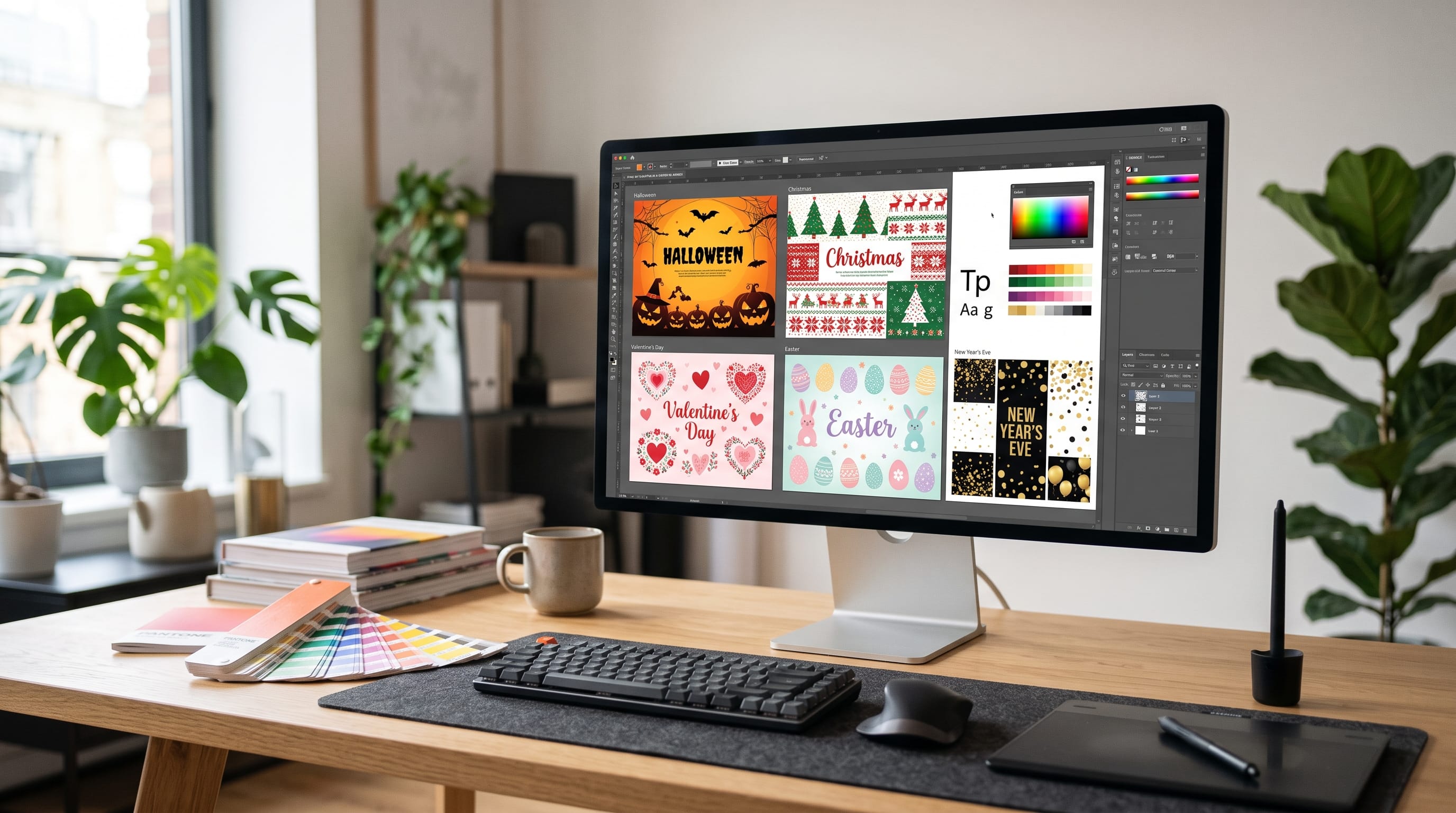
Holiday Graphic Design Styles That Inspire Better Designs
Creative seasonal campaigns begin with choosing the right holiday graphic design styles. Whether you’re designing for Christmas, Halloween, Valentine’s Day, Easter, Thanksgiving, Lunar New Year, or other celebrations, your visual direction should immediately communicate the excitement and atmosphere of the occasion. Strong seasonal graphics help brands connect emotionally with audiences while making products and promotions more memorable.
Modern holiday graphic design styles combine festive color palettes, engaging typography, seasonal illustrations, thoughtful layouts, and compelling visual storytelling. Designers who understand how to adapt their style for different holidays can create artwork that performs well across social media, websites, packaging, email marketing, and print materials.
Why Holiday Graphic Design Styles Matter
Seasonal design captures attention quickly.
Using effective holiday graphic design styles helps:
• Increase customer engagement
• Strengthen seasonal branding
• Improve campaign performance
• Create memorable visual experiences
• Support holiday promotions
• Encourage social sharing
• Increase product appeal
Strong holiday visuals help brands stand out during busy shopping seasons.
Holiday Graphic Design Styles for Christmas
Christmas remains one of the biggest opportunities for seasonal marketing.
Cozy Winter Style
Key characteristics include:
• Snow textures
• Pine branches
• Warm lighting
• Soft illustrations
• Traditional holiday colors
This style creates warmth and nostalgia.
Scandinavian Minimal Style
Modern Christmas campaigns often feature:
• Neutral colors
• Clean layouts
• Simple illustrations
• Elegant typography
Minimal designs communicate sophistication.
Holiday Graphic Design Styles for Halloween
Halloween encourages bold creativity.
Vintage Halloween
Popular design elements include:
• Distressed textures
• Retro typography
• Classic pumpkins
• Witch illustrations
• Orange and black palettes
Vintage themes continue attracting attention.
Cute Halloween Style
Perfect for:
• Children’s products
• Family events
• Holiday stickers
• Classroom decorations
Friendly illustrations appeal to wider audiences.
Holiday Graphic Design Styles for Valentine’s Day
Romantic campaigns require softer visual approaches.
Elegant Romance
Popular features include:
• Floral illustrations
• Soft gradients
• Gold accents
• Blush color palettes
Elegant typography enhances emotional appeal.
Modern Minimal Valentine
Minimal layouts combine:
• White space
• Clean typography
• Soft pink tones
• Contemporary illustrations
This style performs well on social media.
Holiday Graphic Design Styles for Thanksgiving
Thanksgiving celebrates warmth and gratitude.
Rustic Harvest Style
Popular elements include:
• Autumn leaves
• Wood textures
• Earth-tone colors
• Handmade illustrations
This style creates a welcoming atmosphere.
Premium Autumn Style
Luxury Thanksgiving campaigns often combine:
• Rich brown tones
• Gold accents
• Elegant typography
• Minimal compositions
Premium aesthetics increase perceived value.
Holiday Graphic Design Styles for New Year
New Year campaigns focus on celebration.
Luxury Celebration Style
Common features include:
• Gold foil
• Black backgrounds
• Metallic effects
• Premium typography
Luxury designs feel sophisticated.
Modern Party Style
Popular elements include:
• Confetti
• Dynamic gradients
• Neon lighting
• Bold compositions
These graphics attract attention quickly.
Recommended DM Letter Studio Fonts for Holiday Designs
Typography defines seasonal personality.
Grinch Snow
Grinch Snow Font
Best for:
• Christmas cards
• Holiday quotes
• Gift tags
• Family-themed promotions
Its handwritten appearance creates warmth and friendliness.
Chalk Field
Perfect for:
• Rustic Christmas signs
• Thanksgiving menus
• Holiday cafés
• Farmhouse decorations
Its handcrafted style complements cozy themes.
Puffy Love
Ideal for:
• Valentine’s Day
• Elegant invitations